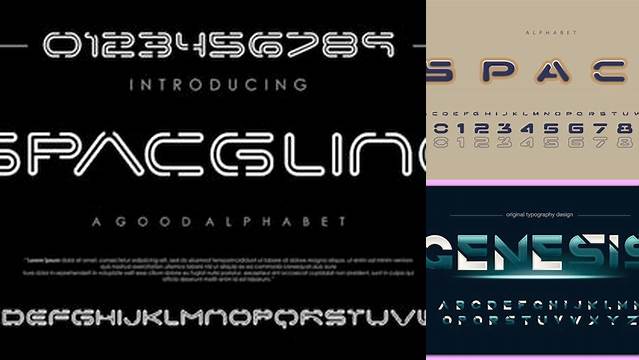
Free Abstract Sci-Fi Fonts: Download & Design Guide
Hey guys, are you looking to inject some futuristic flair into your designs? Well, you've landed in the right place! Today, we're diving deep into the awesome world of abstract sci-fi modern alphabet fonts, and the best part? You can snag some of these beauties for free download! We'll explore what makes these fonts so darn cool, where to find them, and how to use them to create some seriously eye-catching designs. Get ready to level up your typography game!
What Makes Abstract Sci-Fi Fonts So Special?
So, what's the big deal about abstract sci-fi fonts anyway? Why should you care? Well, these fonts are all about capturing the essence of the future, the unknown, and the cutting edge. Think sleek lines, geometric shapes, and a sense of otherworldly sophistication. They often draw inspiration from popular science fiction movies, video games, and technological interfaces, giving your designs an instant dose of high-tech appeal. Unlike traditional fonts, abstract sci-fi fonts often break the mold with their unique letterforms, making them perfect for projects that demand attention. They are designed to be bold and impactful. These fonts are more than just letters; they are a statement.
Abstract sci-fi fonts are incredibly versatile. They can be used in a variety of design projects, from website headers and movie posters to logos and branding materials. They are particularly well-suited for projects related to technology, gaming, science, and futuristic concepts. The very nature of these fonts, with their sharp angles, and futuristic aesthetic, creates a sense of speed, innovation, and sophistication. They can give your design project the right impact, whether you want to create a sense of mystery or convey a sense of cutting-edge technology.
These fonts are especially effective in grabbing attention, making them ideal for titles, headings, and display text. They have a natural ability to make your designs stand out from the crowd. Furthermore, they provide an opportunity to showcase creativity. Designers can choose fonts that align with the project's theme, and create an integrated aesthetic. The unique style, the clean lines, and the geometric elements of the fonts help create memorable visual identities that stick in the minds of viewers. Consider the audience. Choosing the right abstract sci-fi font can make your design resonate more deeply with the targeted audience. The ability to visually communicate advanced ideas helps the audience understand your intended message.
Remember to always read the license agreements before downloading and using any font. Some fonts are free for personal use only, while others are free for commercial use. This will help you avoid any legal headaches down the line. Be responsible and respect the work of the font designers. This is also to avoid any copyright issues. Always verify the license terms to ensure that your use complies with the designer's intention. This also helps to ensure the originality of your projects.
Tips for Using Abstract Sci-Fi Fonts Effectively
Now that you have your free downloads, how do you actually use these fonts to create killer designs? Here are some tips to get you started:
- Choose the Right Font for the Job: Not all fonts are created equal. Consider the overall tone and message of your design. A sleek, minimalist font might be perfect for a tech startup's website, while a more complex, detailed font could be ideal for a movie poster. Think about how the font will complement the other elements in your design. It should not clash with the images and colors. The correct font will enhance the overall aesthetic.
- Pair Fonts Wisely: Don't be afraid to experiment with font pairings. Combining a bold sci-fi font with a more subtle sans-serif font can create a visually interesting contrast. Try to keep the number of fonts you use in a single design to a minimum to avoid clutter. When in doubt, go for simplicity. Carefully selecting the right pairing will greatly enhance your designs.
- Consider Readability: While abstract sci-fi fonts are visually stunning, some can be difficult to read, especially at smaller sizes. Make sure your chosen font is legible, particularly if you're using it for body text. Prioritize readability for any important information. Choose fonts with clear letterforms and adequate spacing. A balance between aesthetics and readability is essential.
- Experiment with Color and Effects: Have fun with color! These fonts often look great with bright, neon colors or gradients. You can also experiment with effects like glows, outlines, and shadows to give your text a futuristic look. Color and effects can make your text more visually appealing. Don't be afraid to try different color combinations to see what works best. Try using gradients to give your text a more dynamic look.
- Use in Moderation: Because abstract sci-fi fonts tend to be so striking, it's generally best to use them sparingly. Save them for headlines, titles, or key call-to-action elements. Avoid using them for large blocks of text, as this can make your design difficult to read. Be mindful of the font's purpose. Keep your design clean, avoid overwhelming the viewer, and maintain a sense of balance.
Design Inspiration: Where to Look for Ideas
Need some inspiration? Here are some places you can look to get those creative juices flowing:
- Movie Posters: Sci-fi movie posters are a goldmine of inspiration. Pay attention to how designers use fonts to create a sense of atmosphere and intrigue. Observe the layouts, color palettes, and the overall design aesthetics. The design is well suited for the theme and concept of the film.
- Video Games: Video games often feature amazing typography. Check out the fonts used in game titles, user interfaces, and promotional materials. Pay close attention to how the fonts are used to enhance the gaming experience. Notice how the fonts visually communicate the themes.
- Tech Websites and Apps: Explore the websites and apps of tech companies and startups. Look at how they use fonts to create a modern, cutting-edge look. See how the design conveys the brand's values. Consider how each font is used for different elements like the title, the headline, and the body text.
- Dribbble and Behance: These design platforms are filled with amazing projects. Search for "sci-fi fonts" or "futuristic design" to find inspiration from other designers. Browse through the projects. Explore different designs. It will help you develop your style.
- Pinterest: Pinterest is a treasure trove of design inspiration. Create a board dedicated to abstract sci-fi fonts and collect examples of designs that you like. This will help you to identify the types of fonts and design styles that appeal to you. This will help you streamline your creative process. Keep the content organized. You can use a variety of designs to create your own unique designs.
By exploring these resources, you'll find plenty of ideas to help you use your free font downloads creatively and effectively.
Conclusion: Unleash Your Inner Futurist
So there you have it! You're now equipped with the knowledge and resources to dive into the world of abstract sci-fi modern alphabet fonts! Remember to experiment, have fun, and don't be afraid to push the boundaries of your creativity. With the right fonts, you can create designs that are truly out of this world. Go forth and design! Enjoy the creative process, and bring your futuristic visions to life. Don't forget to share your designs with the world! Happy designing, guys!